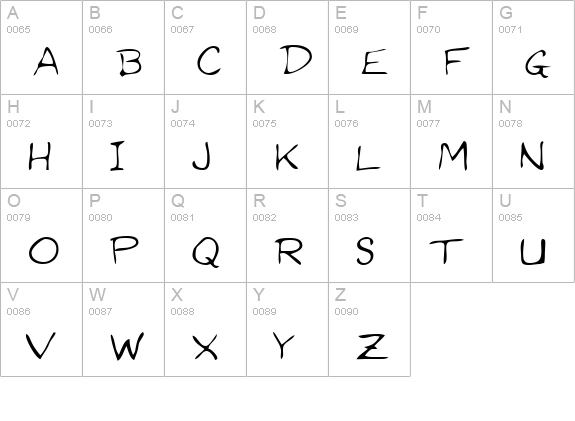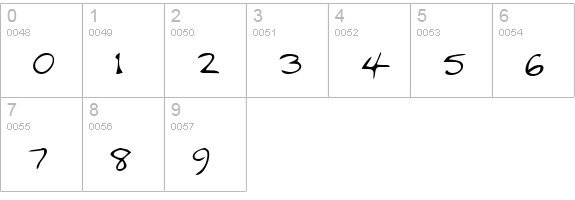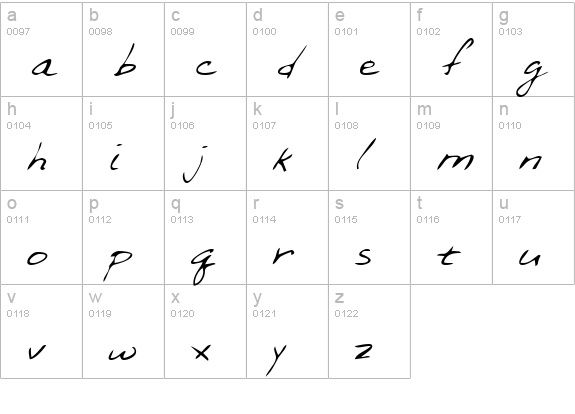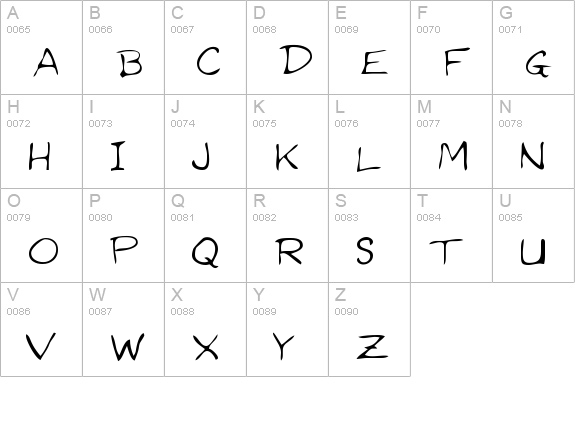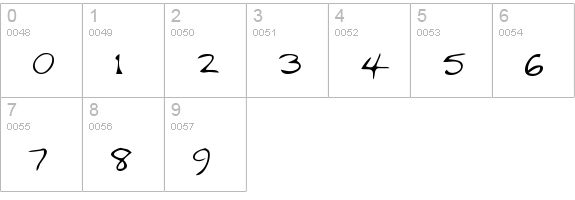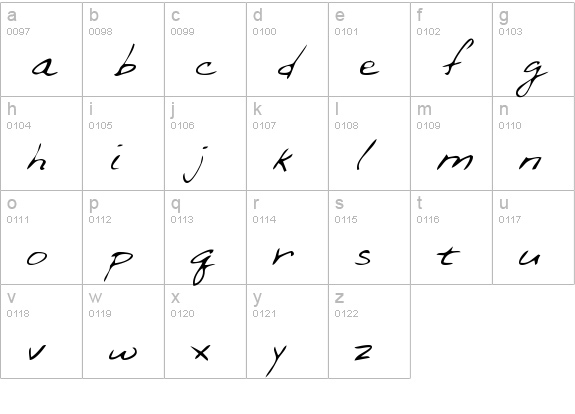
NedsHand Regular is the standard, neutral variant in the NedsHand typeface family \xE2\x80\x94 well suited to general body text, paragraphs, and standard typographic work.
NedsHand Regular font is a charming and playful typeface that exudes a sense of warmth and friendliness. With its quirky handwritten style, this font adds a personal touch to any design project. Whether you're creating invitations, greeting cards, or posters, NedsHand Regular is sure to make your text stand out. Best of all, NedsHand Regular font is available for free download at FontsMarket.com. This means you can easily access this delightful font and incorporate it into your creative works without any cost. Don't miss out on the opportunity to add a touch of whimsy to your designs with NedsHand Regular font!